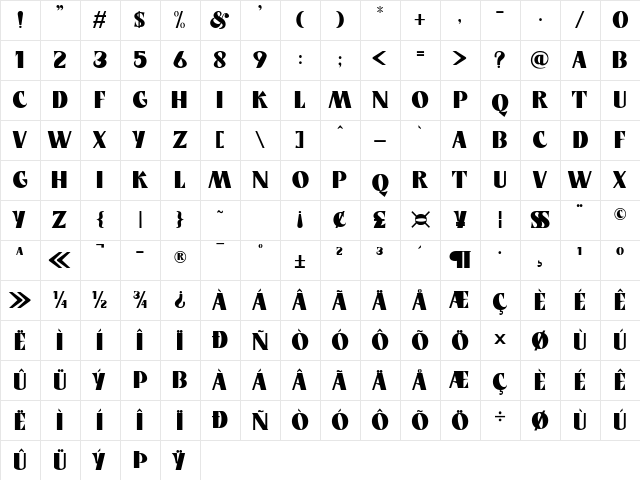
King & Queen Regular
Designer: Muhamad Fikry Nuralif
Design Context for King & Queen
King & Queen is a composed and adaptable typeface that performs quietly and consistently across a wide range of design contexts.